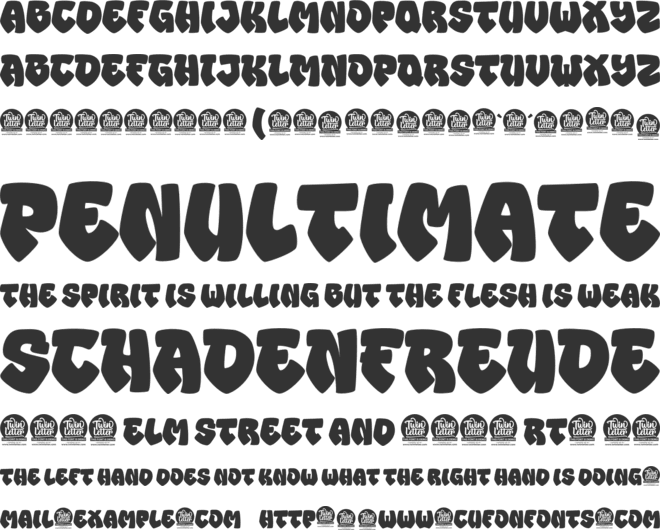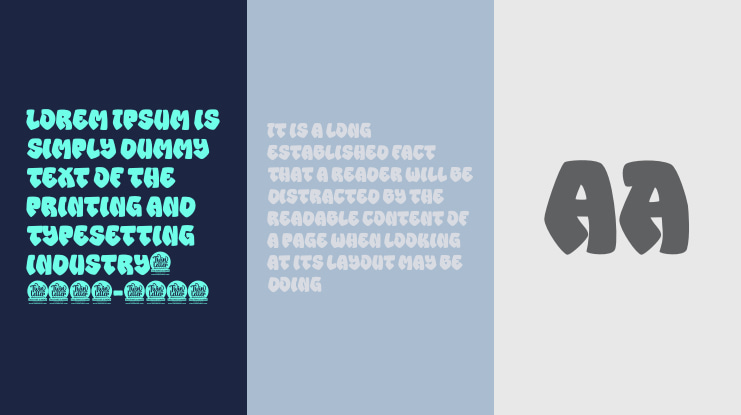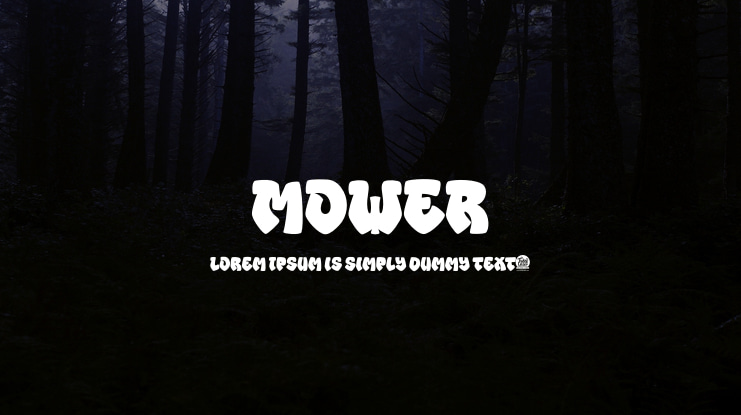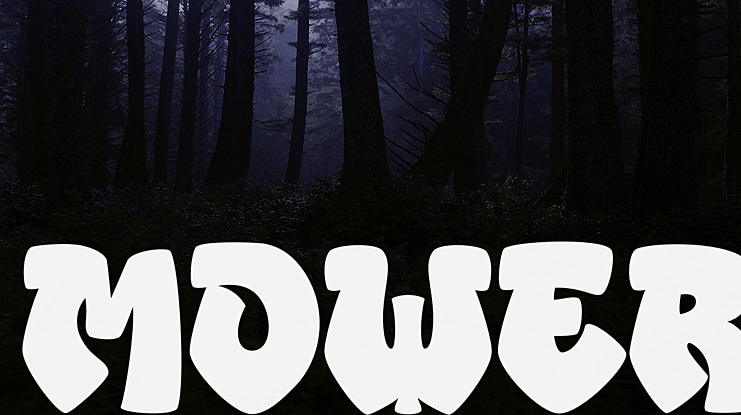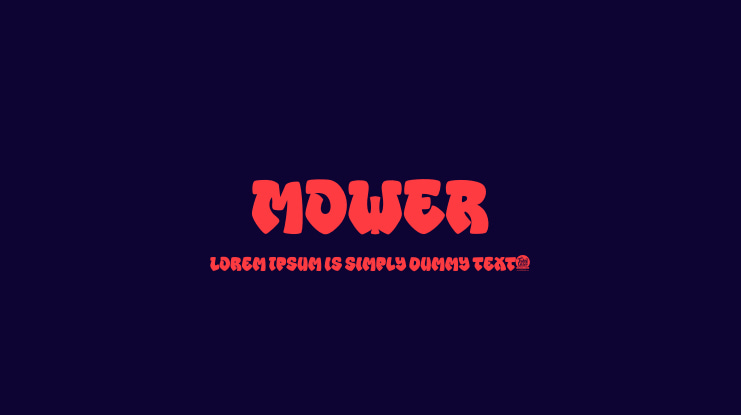
MOWER Font
Mower Display FontIt's a thematic Graffiti typeface with an attractive design. We created this typeface with a highly harmonic shape in mind, meticulously correcting the letter-spacing from one another to achieve optical harmony in all of your projects. When you utilize this typeface, your project will be transformed into something elegant and flawless.This graffiti font is great for product logos, poster titles, headlines, packaging, film titles, logotypes, gorgeous writing, and trendy graffiti designs, among other things.Of course, if you utilize this font in your numerous creative projects, they will be perfect and outstanding. Use this typeface right away for your one-of-a-kind and remarkable projects.Terms Of UseBy downloading or using our font, you are read and accepted to the Our Term and Use Agreement :This font is copyrighted and protected by the law. Usage of this font on any work without a proper license is deemed illegal. You might get fined at least USD 3000 for this act. Please do understand that we have our own system for tracking the usage of our works on the internet.1. This font is Demo ONLY, FOR PERSONAL USE NO COMMERCIAL USE ALLOWED2. Click this link to purchase on our website :https://twinletter.com/product/mower/3. For Corporate or Commercial use you have to purchase Corporate and commercial licenses, please contact us at :rozi.t- Any donations are acceptable and very appreciated. PayPal account for donation:https://paypal.me/abahroziDon't forget to follow our social media for updates:Instagram: twinletterFacebook: TwinletterTwitter: @twinletter